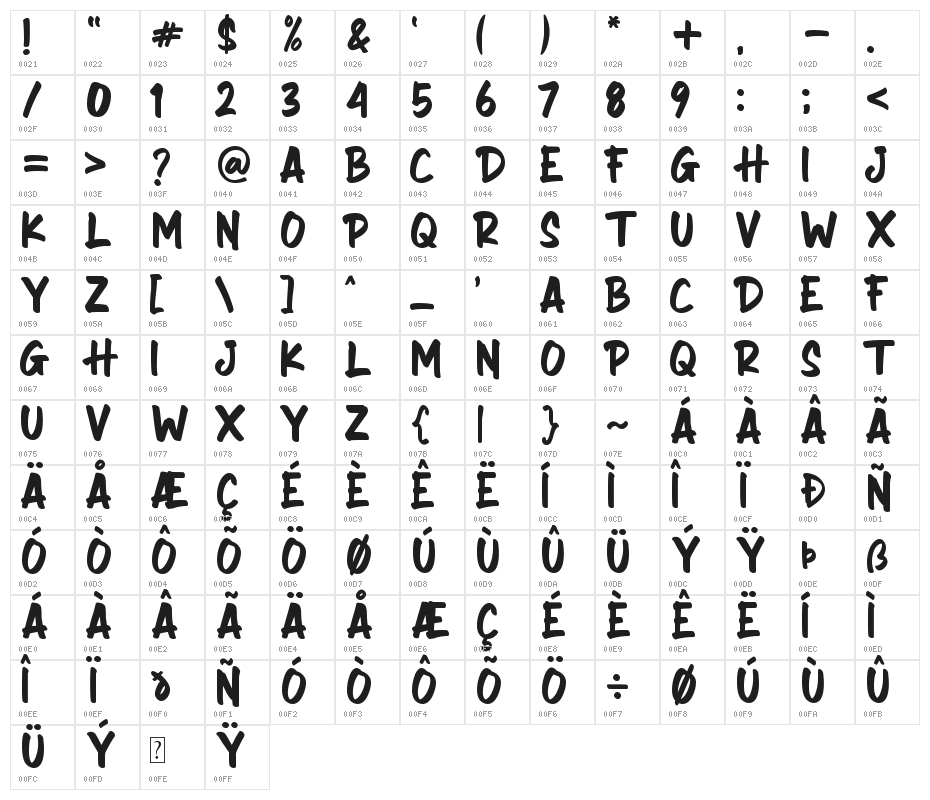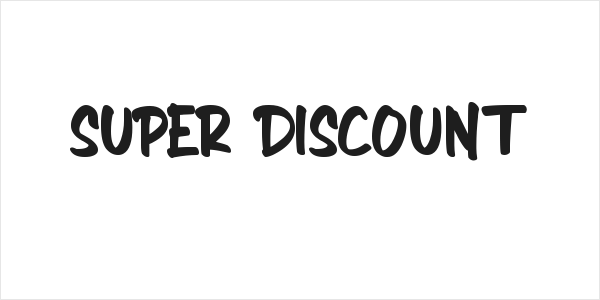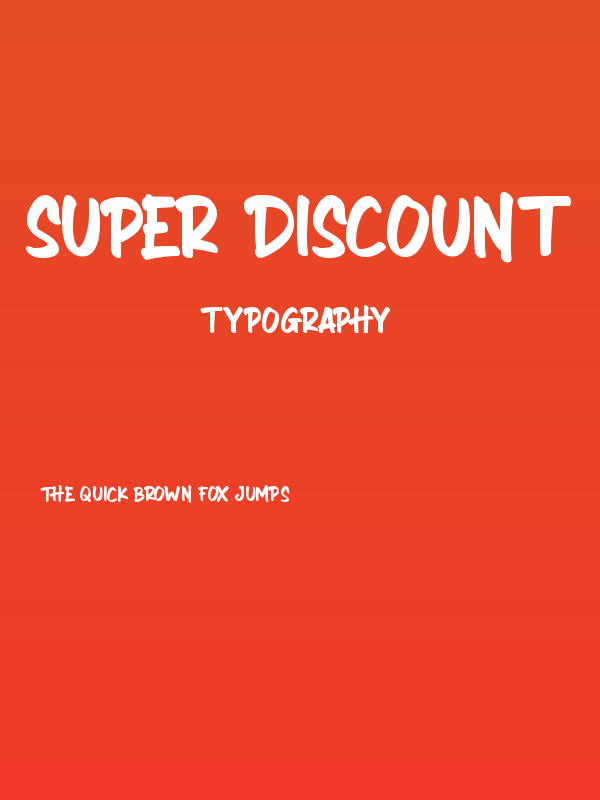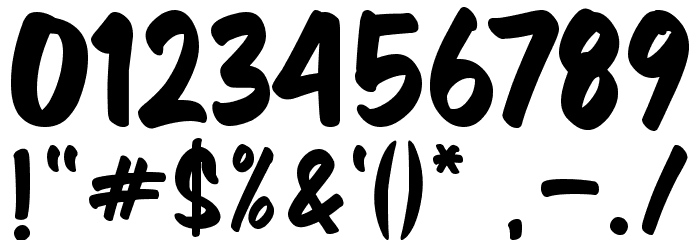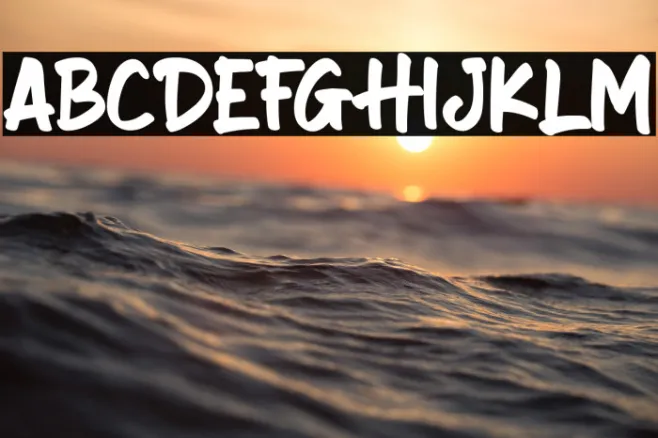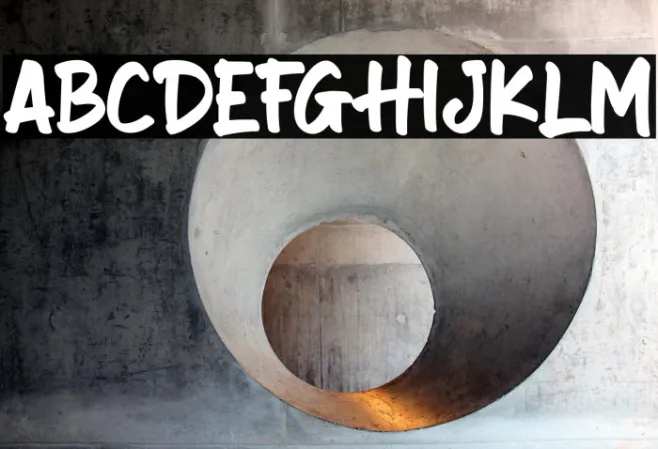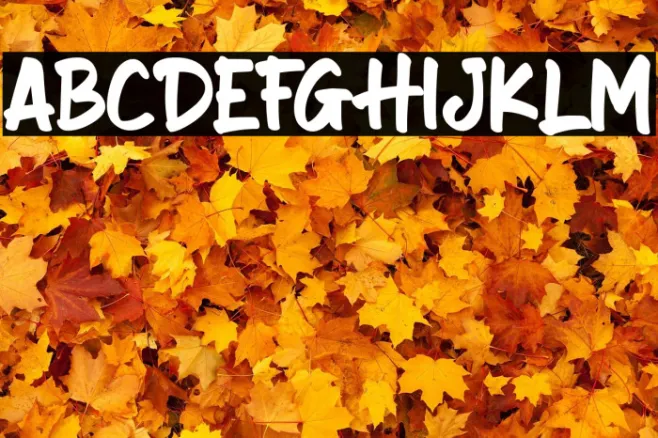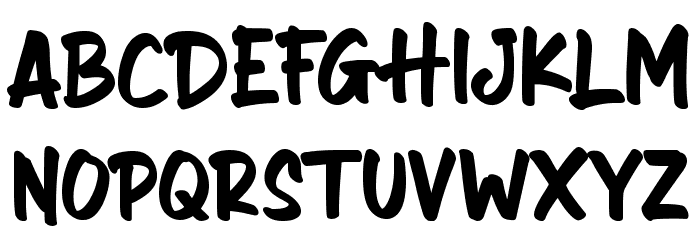
SUPER DISCOUNT Font
SUPER DISCOUNT Description
This font features a bold and playful handwritten style, characterized by thick, rounded strokes that convey a sense of energy and enthusiasm. The uppercase and lowercase letters maintain a consistent flow, with slightly irregular shapes that add a touch of whimsy. The numbers and special characters are equally bold, ensuring readability and maintaining the font's lively aesthetic. Its informal and friendly appearance makes it ideal for projects that require a personal touch.
| Proposed Projects | Ideal for children's books, playful branding, casual invitations, and social media graphics. |